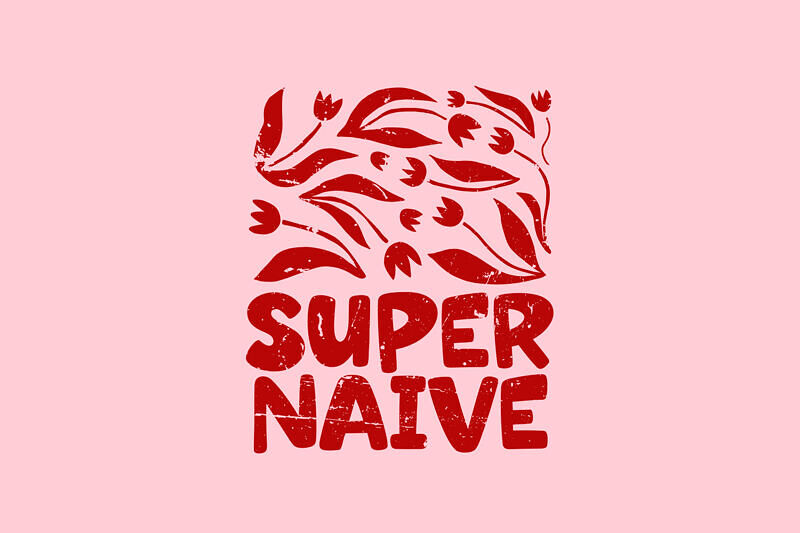
Super Naive Font is a bold, hand-drawn display typeface that radiates organic charm. Characterized by its chunky, rounded letterforms and a distinctive weathered texture, this font captures a raw, “linocut” aesthetic. Its playful, slightly irregular weight distribution makes it ideal for retro branding, expressive posters, and DIY-inspired packaging.
With its tactile, rubber-stamped feel, this free-spirited font adds a human touch to digital designs. Use its impactful weight to create eye-catching headlines that feel both nostalgic and modern.